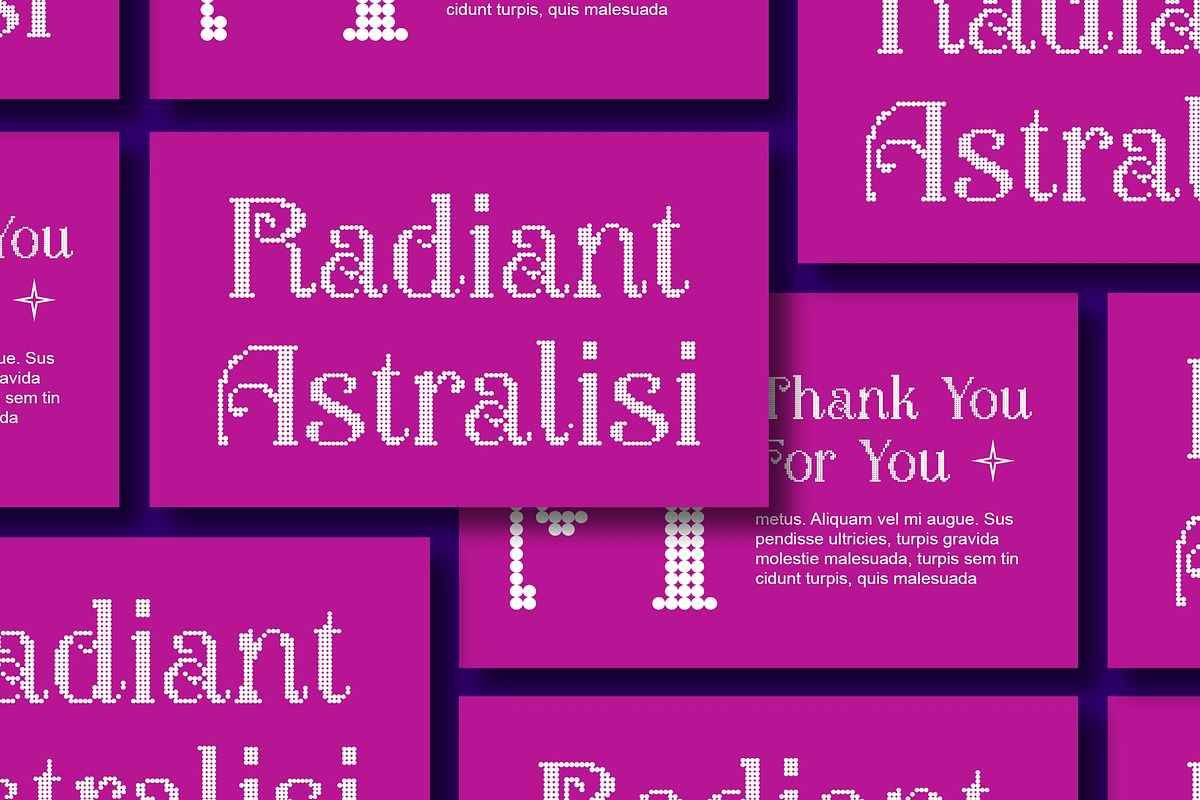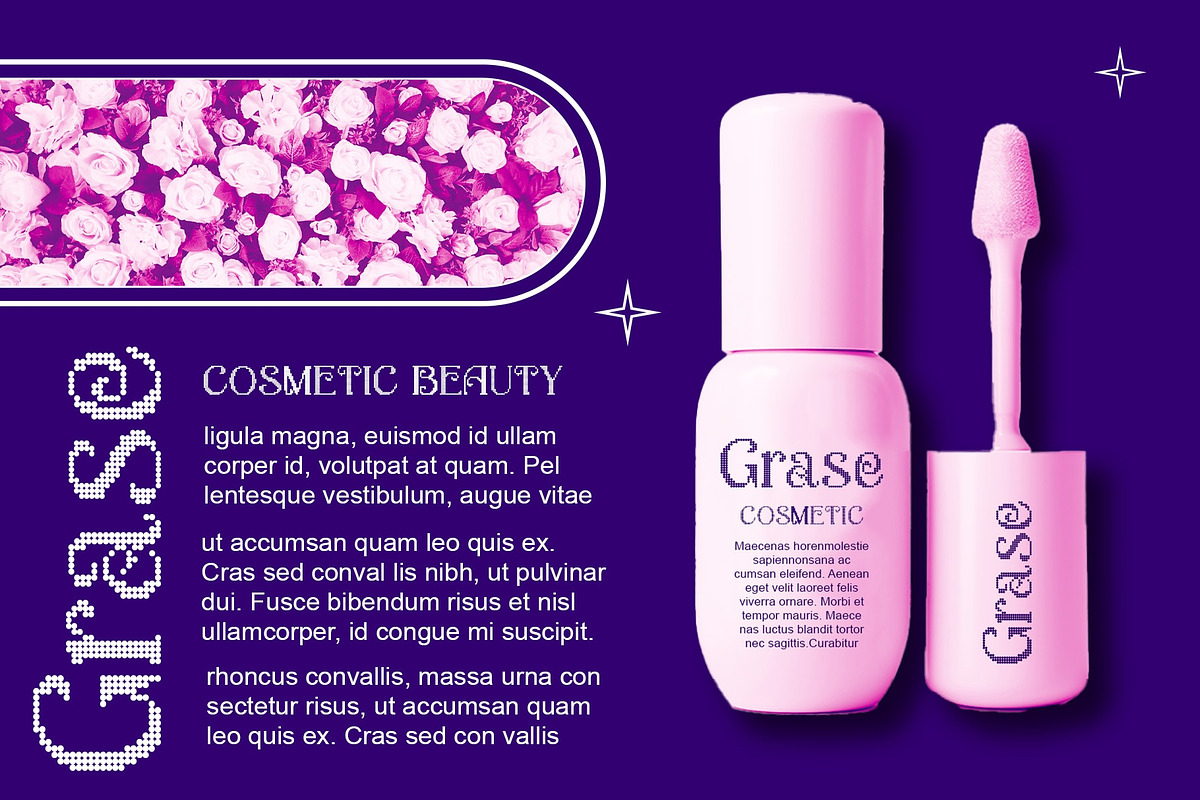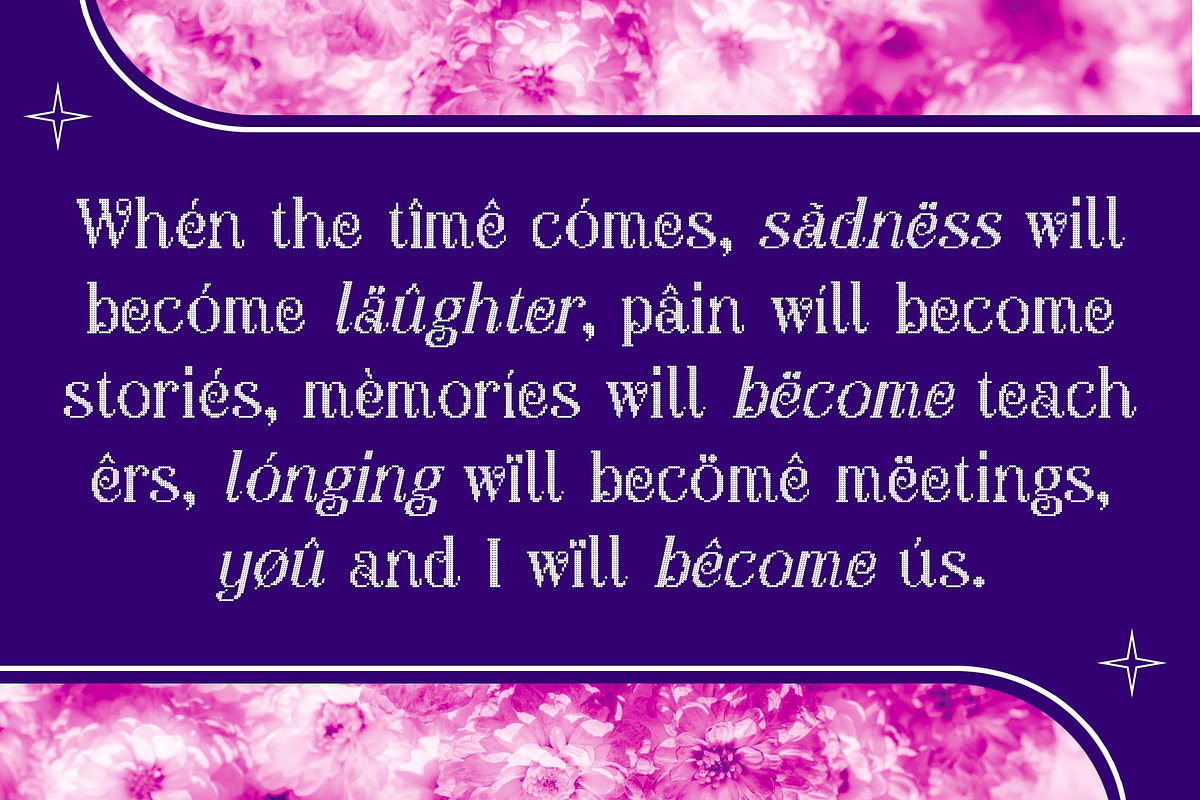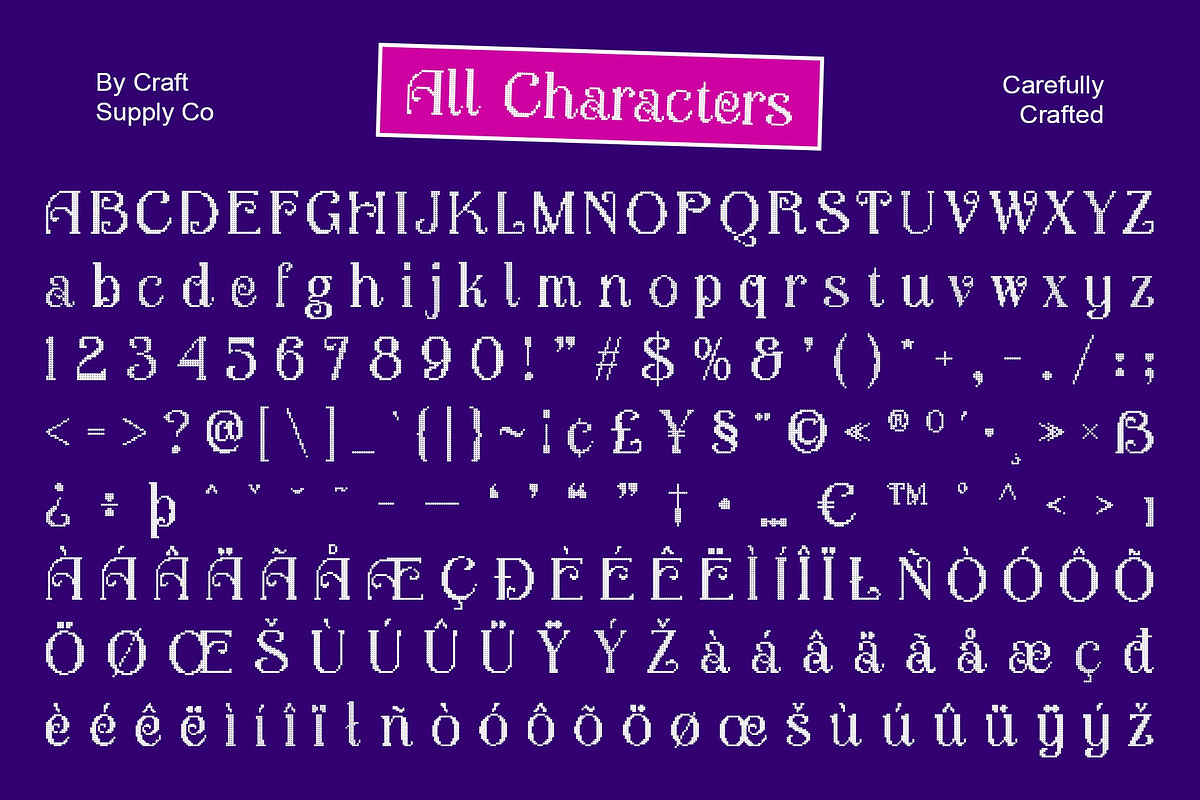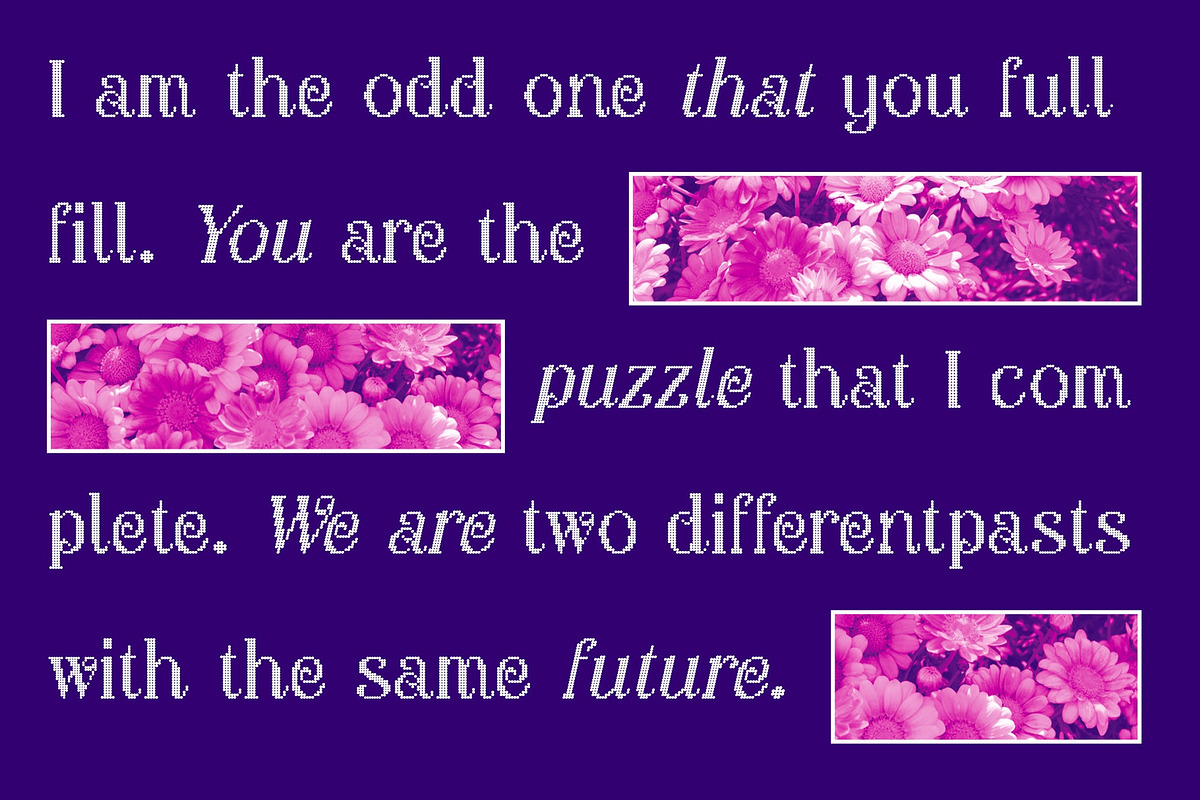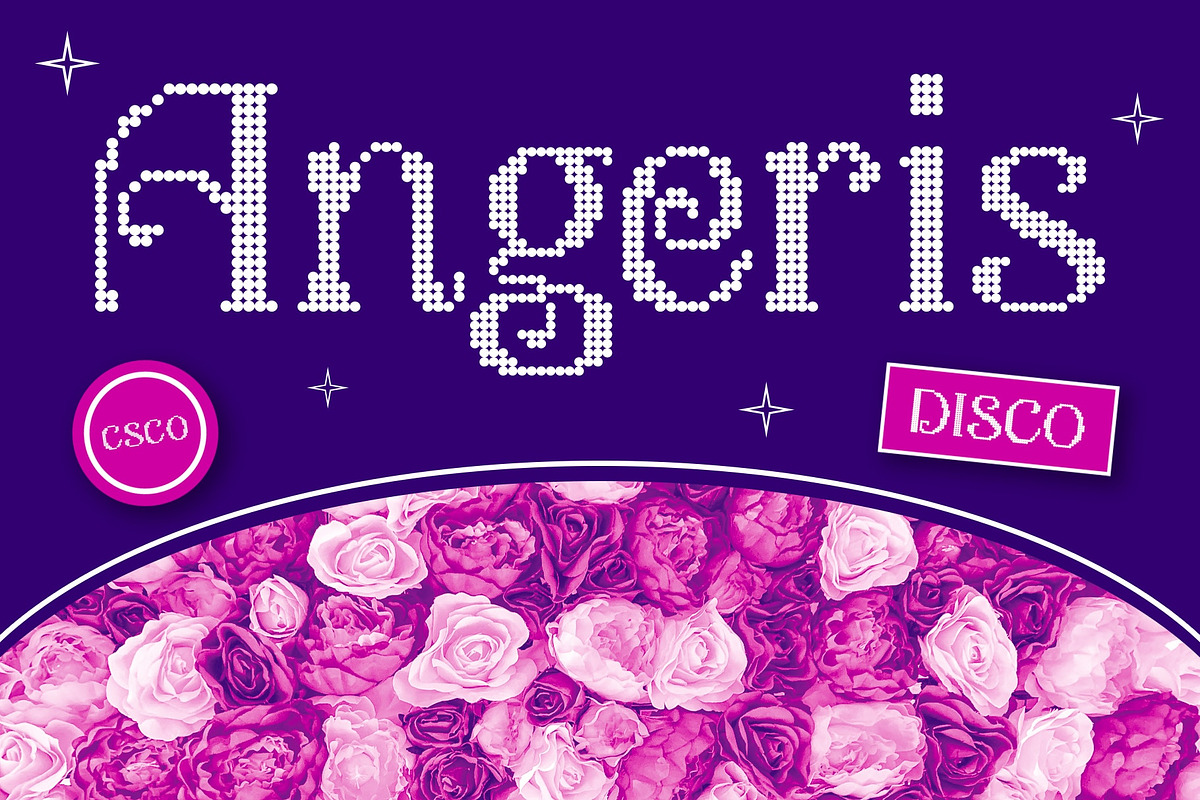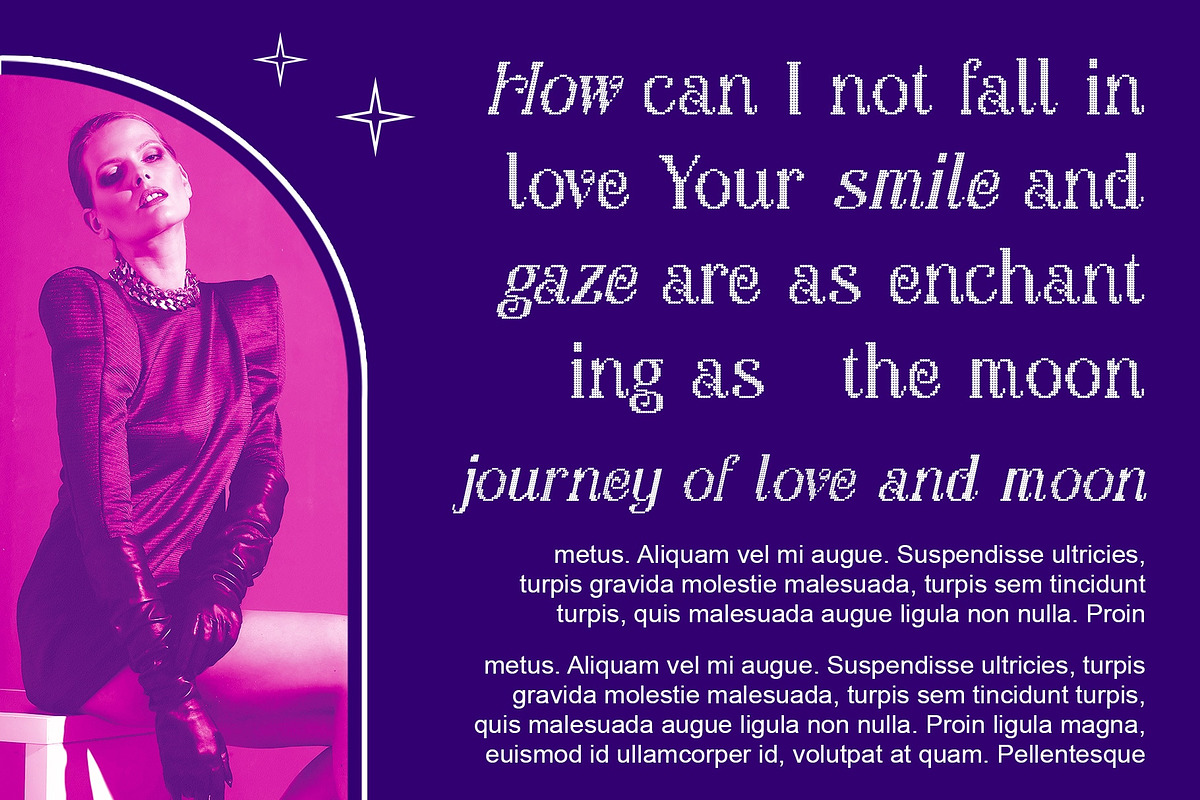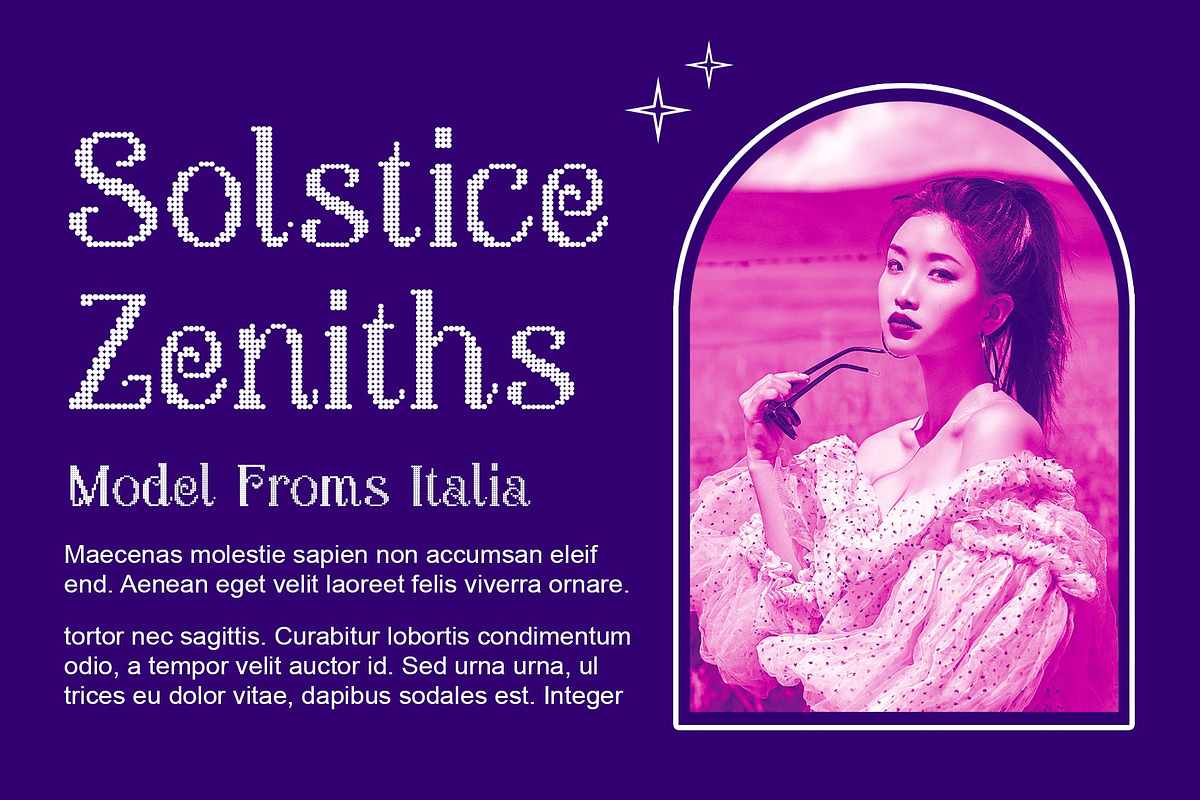
Angeris Disco
Angeris Disco: Where Beauty Meets Groove
Disco Dot Display Font
Angeris Disco is a delightful display font that combines beauty with a disco vibe, featuring a charming dot pattern that adds a playful touch to your designs. Perfect for adding a bit of fun and flair to any project, this font is sure to make a statement.
Cute and Charming Design
With its cute and charming design, Angeris Disco is the perfect font for projects that need a touch of whimsy. The dot pattern gives the font a unique and playful look, making it ideal for children’s books, greeting cards, and other designs that require a fun and friendly vibe.
Perfect for Stylish Displays
Whether you’re creating a poster for a disco-themed event or designing packaging for a trendy product, Angeris Disco is sure to impress. Its stylish design and unique dot pattern make it perfect for stylish displays that demand attention.
Versatile and Easy to Use
Despite its playful appearance, Angeris Disco is versatile and easy to use. The font works well in both large and small sizes and can be used for headlines, logos, and more. Plus, with its disco-inspired vibe, it’s sure to add a touch of retro charm to any design.
- Angeris Disco Regular
- Angeris Disco Italic